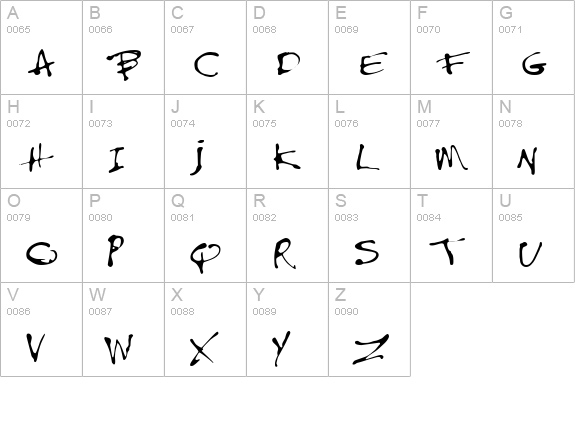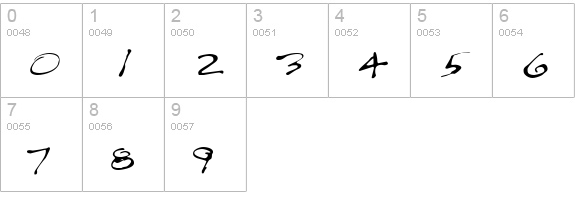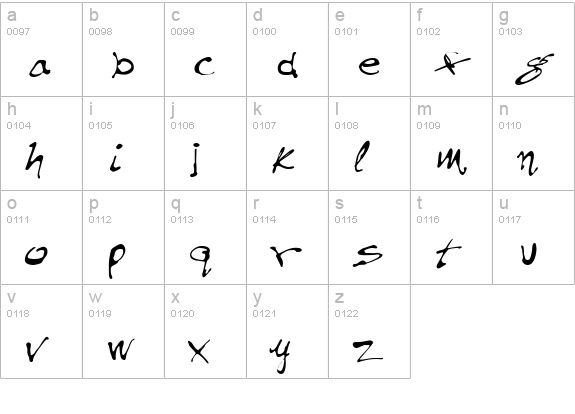
PFInkPen Medium Font Details
PFInkPen Medium is a balanced, medium-weight variant in the PFInkPen typeface family \xE2\x80\x94 well suited to sub-headlines, navigation, and balanced editorial work.
Introducing PFInkPen Medium font, a versatile and stylish typeface that effortlessly combines elegance with a touch of playfulness. Designed with precision and attention to detail, this font is perfect for a wide range of projects, from branding and advertising to invitations and social media graphics. Featuring a medium weight that strikes the perfect balance between boldness and readability, PFInkPen Medium font adds a subtle sophistication to any design. Its smooth lines and fluid strokes give your text a dynamic and modern look, making it stand out on both digital and print mediums. Whether you're creating a logo for your business, designing a poster for an event, or crafting a personalized greeting card, PFInkPen Medium font offers endless possibilities for creativity. And the best part? It's completely free! You can download PFInkPen Medium font at FontsMarket.com and start using it in your projects today. Embrace the creativity and versatility of PFInkPen Medium font and elevate your designs with its unique charm and character. Let your imagination run wild and make a statement with this stunning typeface that is sure to leave a lasting impression.